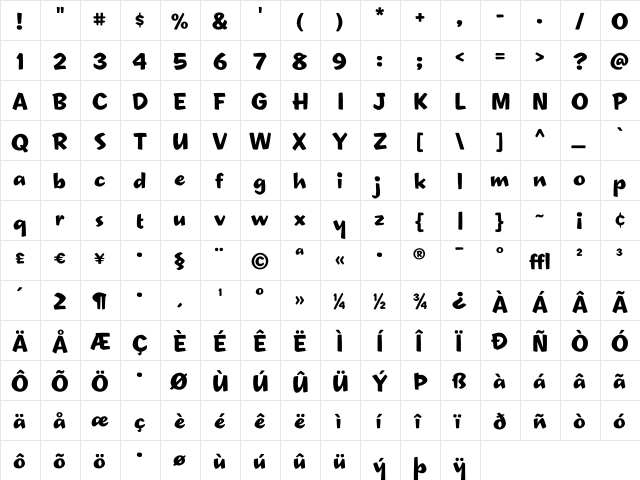
LasVegas Castaway Font Preview
LasVegas Castaway
Design Context for LasVegas Typeface
LasVegas is a composed and adaptable typeface that performs quietly and consistently across a wide range of design contexts.